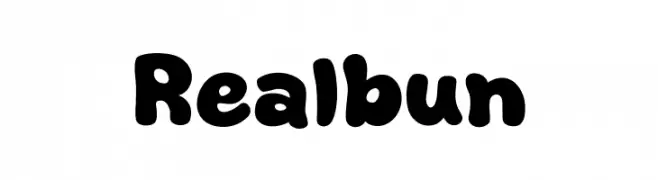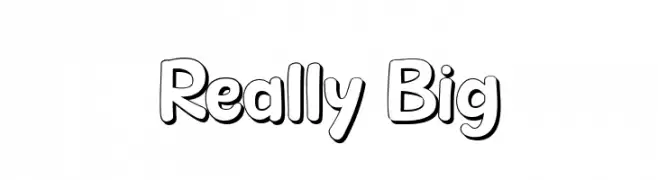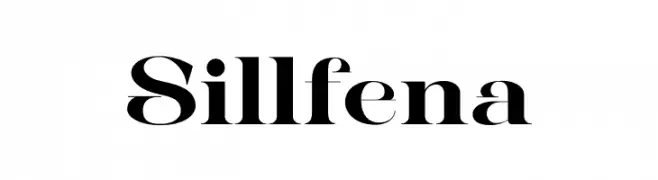
( Fonts by Khurasan™ )
A playful, bold font with rounded, bubbly characters.
( Fonts by Misti's Fonts )
A playful, outlined font with a bubble-like, hand-drawn style.
( Fonts by Khurasan™ )
A playful, bold font with rounded edges and a hand-drawn look.
( Fonts by Hawtpixel )
Futuristic, italicized geometric sans-serif with sharp angles.
A bold, brush-style font with dynamic, hand-painted strokes.
( Fonts by BlackFridayFont FMF )
A bold, rounded, playful display font with a whimsical feel.
( Fonts by Khurasan™ )
Playful handwritten font.
( Fonts by Khurasan™ )
A bold, playful font with rounded, bubbly characters perfect for fun designs.
A high-contrast, elegant serif font with sharp serifs and a sophisticated style.
( Fonts by Misti's Fonts )
Playful, hand-drawn style font.